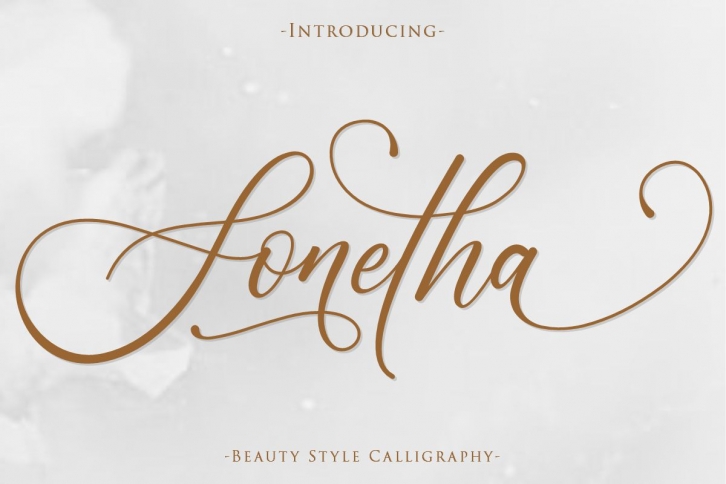
Sonetha is a trendy and unique font with an authentic style. It was designed by Gilar Studio and it's a great choice for creative people who need such a font. It was released on January 13, 2020 and the file size is 19.6 MB. Sonetha will add an organic vibe to any design idea!